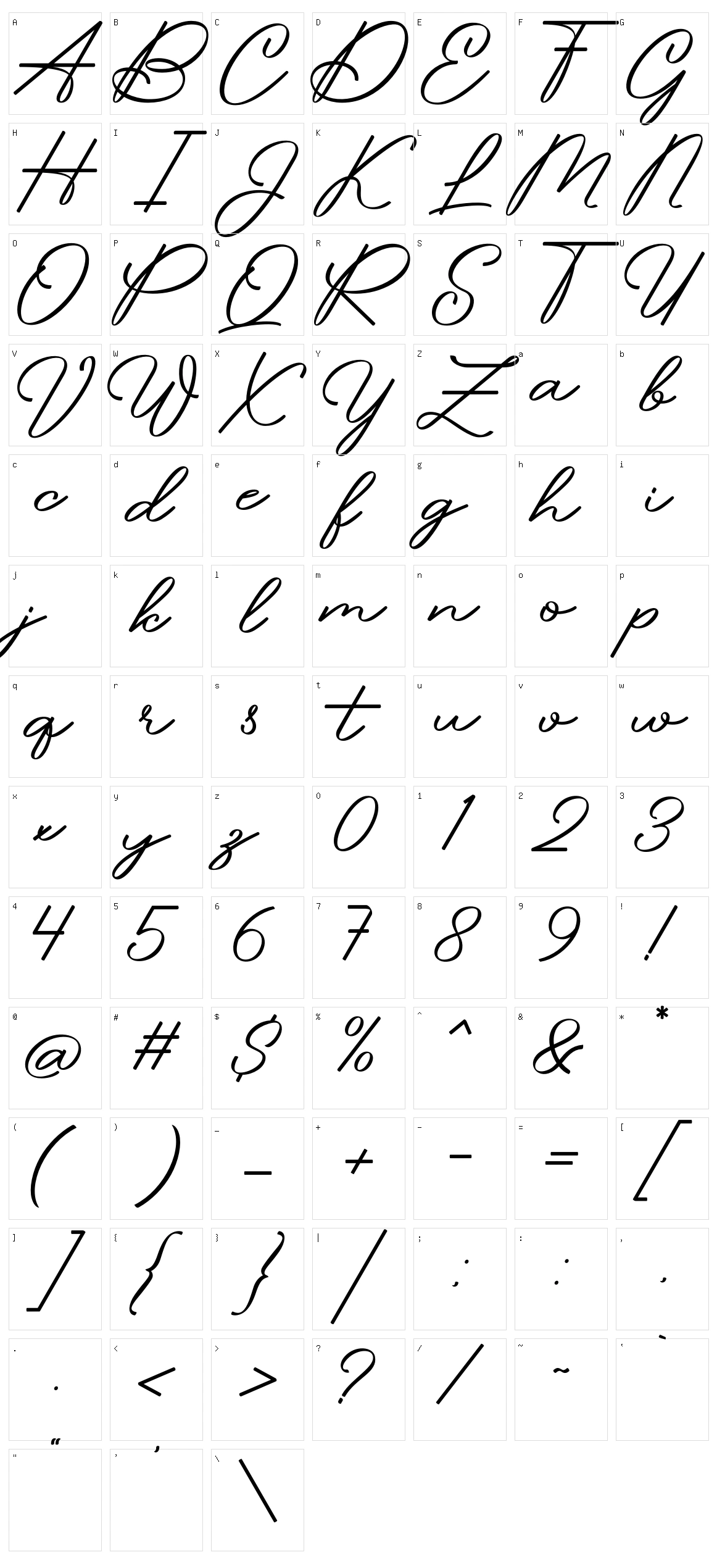
Introducing Bandriya smooth and authentic handwritten font a must-have for any handwritten font collection.
Perfect for: elegant branding, wedding stationery, romantic book cover designs, classy packaging, album covers, handwritten quotes, greeting cards, unique social media posts and more.